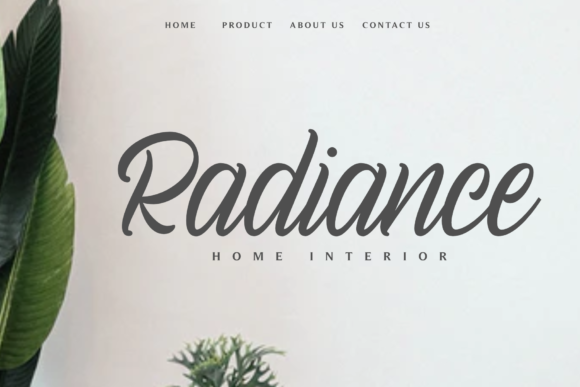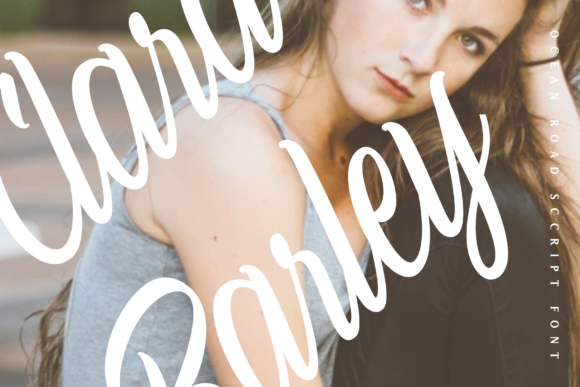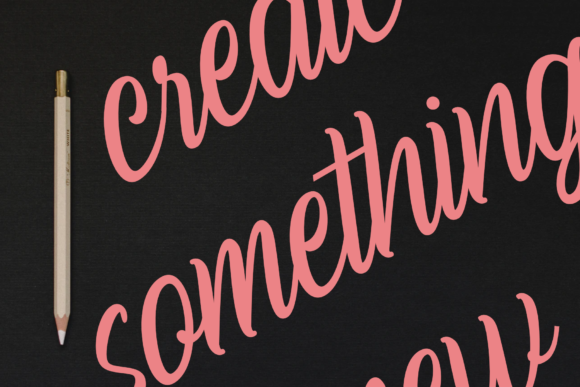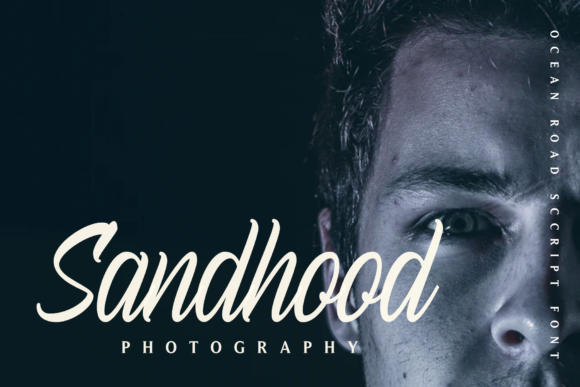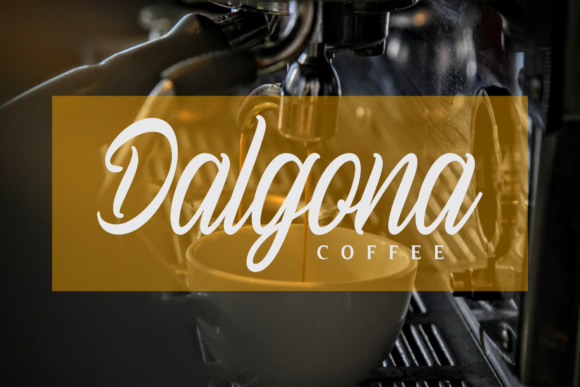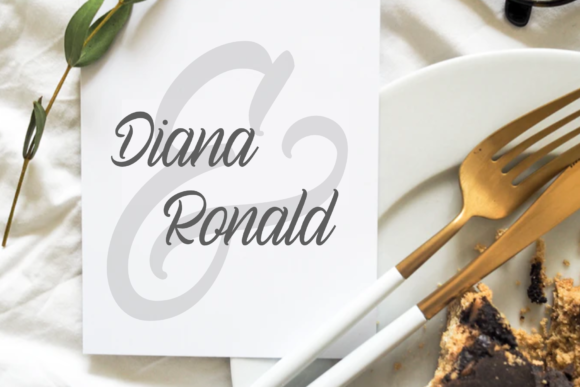
Introduction to Ocean Road Font
Have you ever found yourself rummaging through a box of old photographs, coming across a faded Polaroid that sparks a flood of memories? For designers, those ‘aha’ moments are often the catalyst for something truly special – a creative project that brings joy to others. And that’s exactly what the Ocean Road Font is all about: spreading warmth and happiness through its unique, handwritten style.
As a valuable resource for designers, the Ocean Road Font offers a high-quality solution for those seeking a friendly, casual feel in their designs. Whether you’re working on a social media campaign, crafting a wedding invitation, or creating a DIY project, this font is sure to elevate your creative vision. With its transparent background and free download option, the Ocean Road Font is an accessible design resource that’s perfect for designers of all levels.
- High-quality design resource with a unique, modern aesthetic
- Comes with a transparent background, ideal for creative projects requiring a subtle look
- Perfect for designers seeking a sophisticated, yet understated font for their next creative project
Honest Review: Ocean Road Font
I recently stumbled upon the Ocean Road Font, and I must say it’s been a great addition to my design resource collection. The font is perfect for any creative project that requires a touch of elegance and sophistication.
Here’s what works well: ✨ The font’s unique design is inspired by the ocean’s waves, which adds a beautiful touch to any text. The transparent background makes it easy to use it on any background image or color. The high-quality vector graphics ensure that the font looks crisp and clear on any screen size.
Some of the key features of the Ocean Road Font include:
- Unique ocean-inspired design
- Transparent background for versatility
- High-quality vector graphics
As for limitations: ⚠️ The font may not be suitable for all types of projects, especially those that require a bold or modern font. Additionally, the font may not be compatible with all operating systems or devices.
Overall, I’m impressed with the Ocean Road Font and would highly recommend it to anyone looking for a high-quality, unique font for their creative project. With its elegant design and transparent background, it’s sure to make your project stand out.